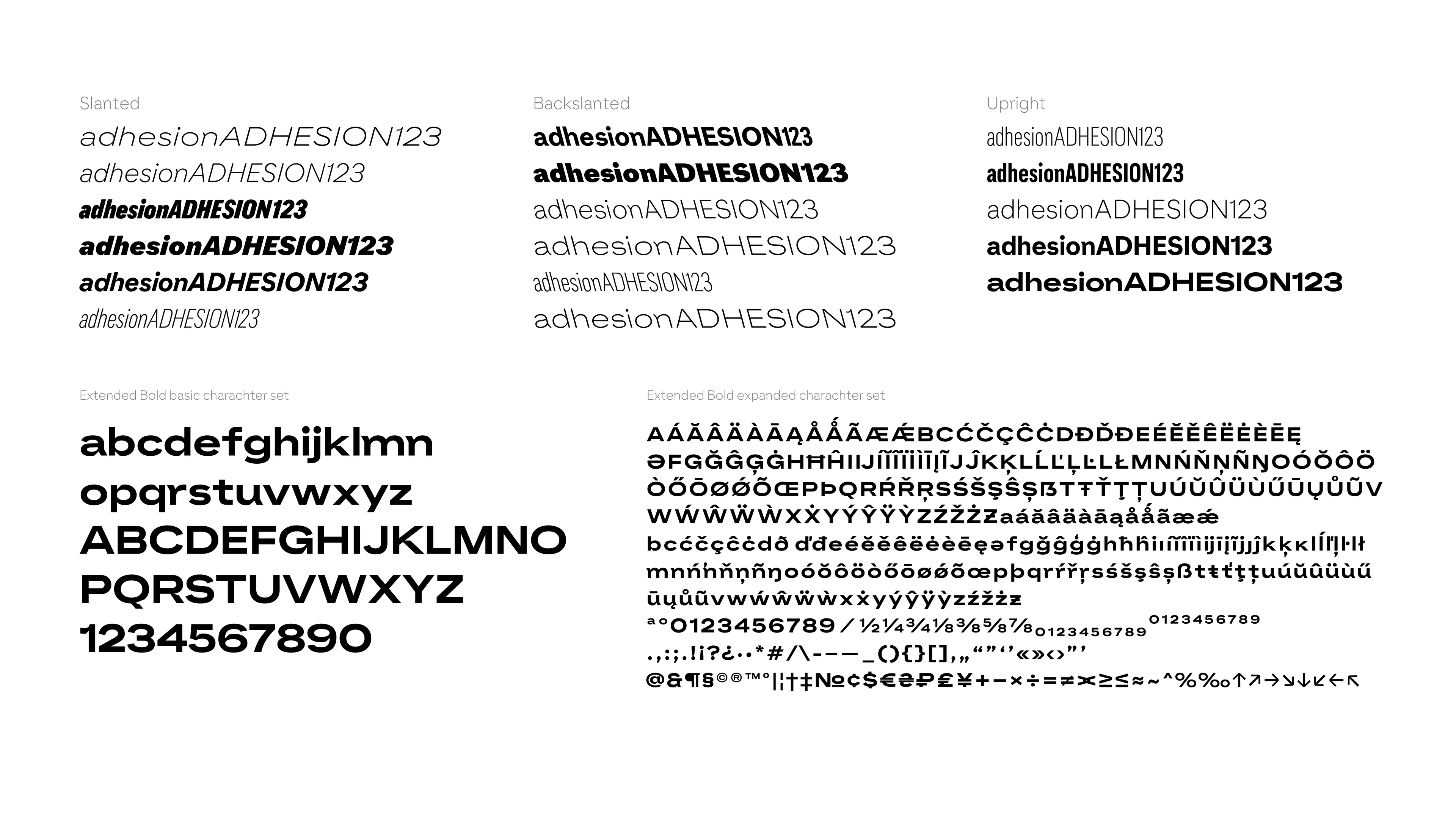
I was hired as a freelance by F37 Type Foundry, to join their team for this project. I was responsible for the expansion and production of a typeface for Electronic Arts. My assignment was to draw initial character sets for regular, bold and light masters across narrow, medium, and expanded widths in collaboration with other team members. I designed the same widths and weights for the slanted and back-slanted versions of the typeface. In addition, I was responsible for expanding Latin character sets for some of those masters.